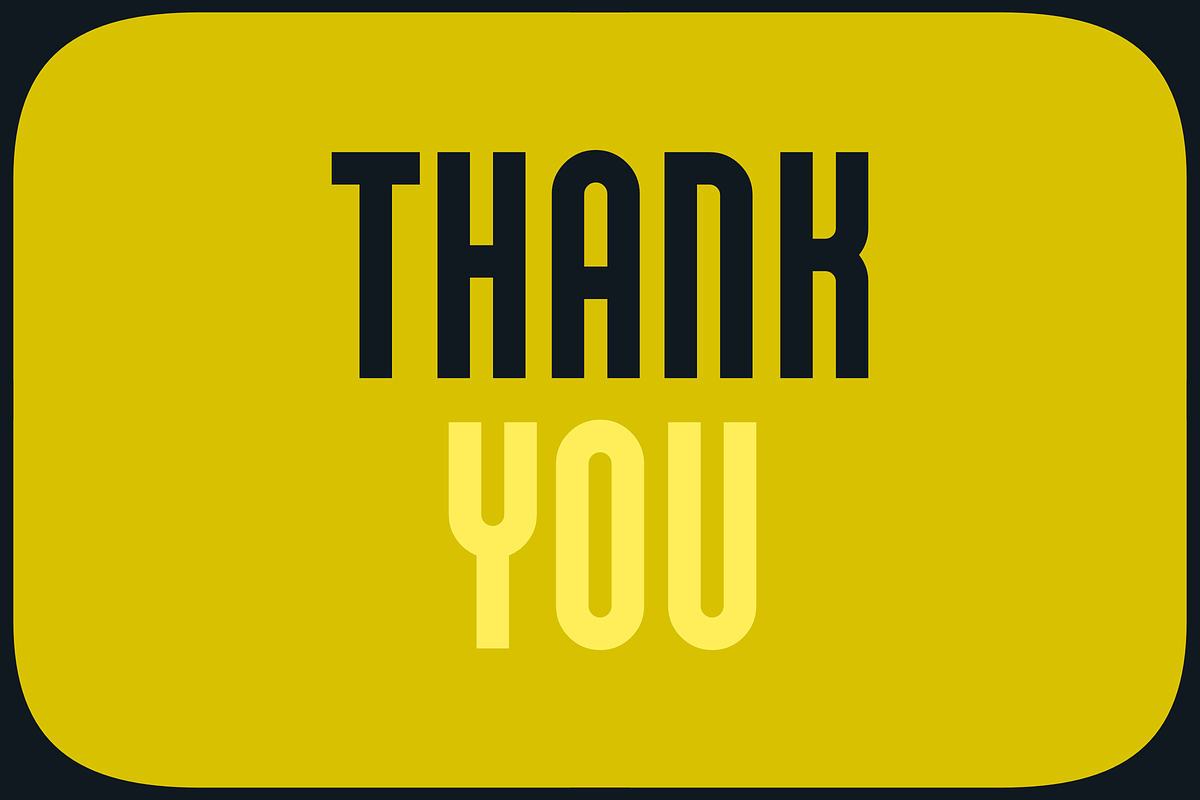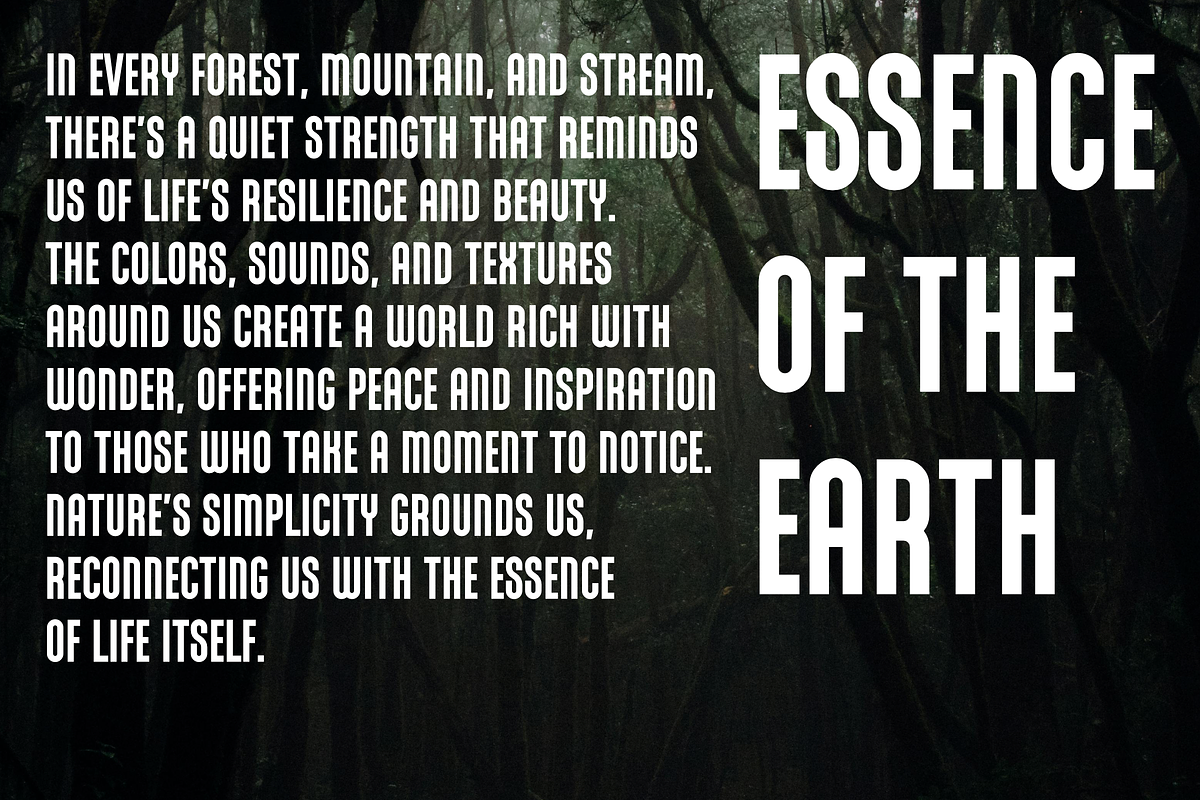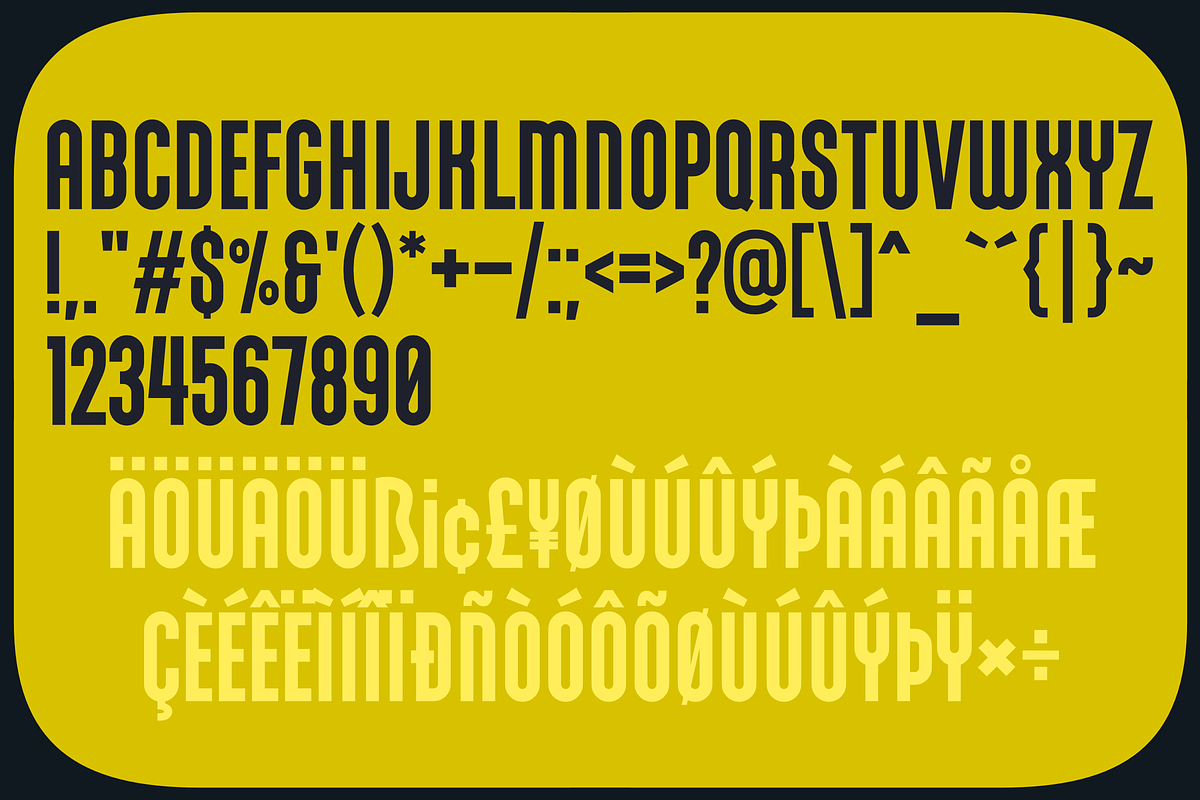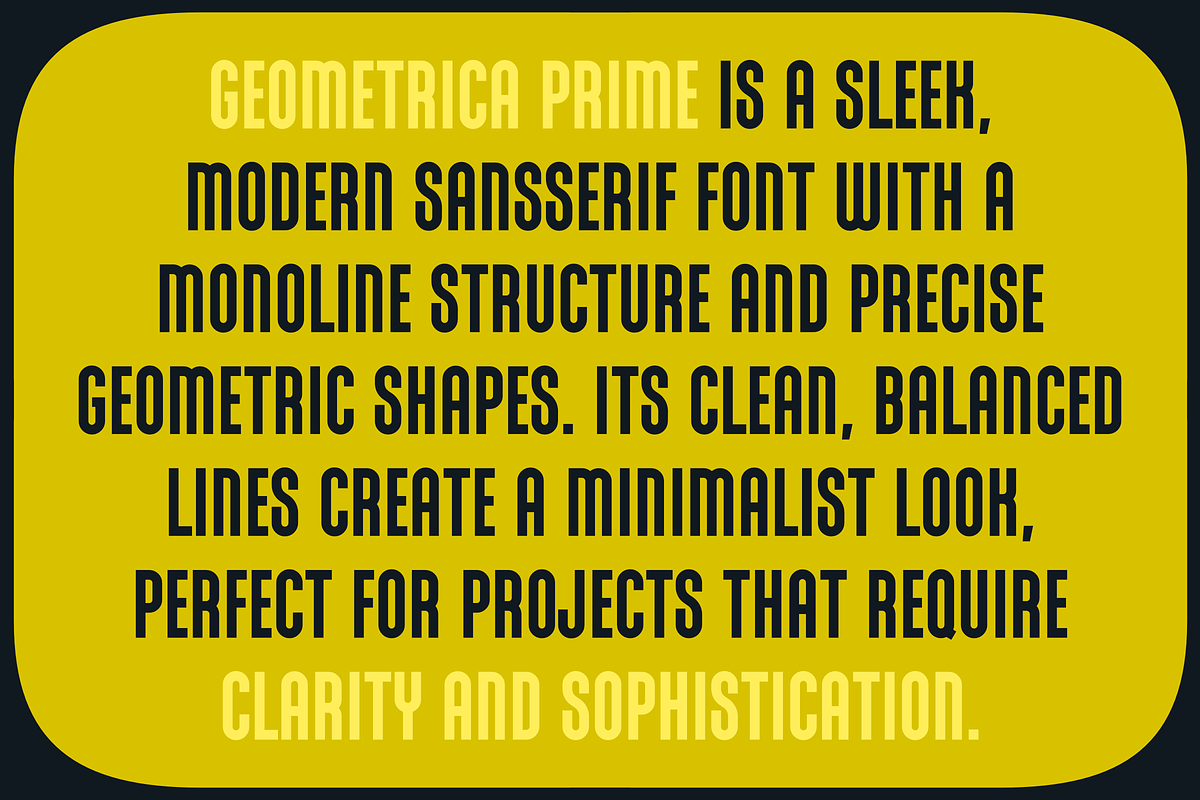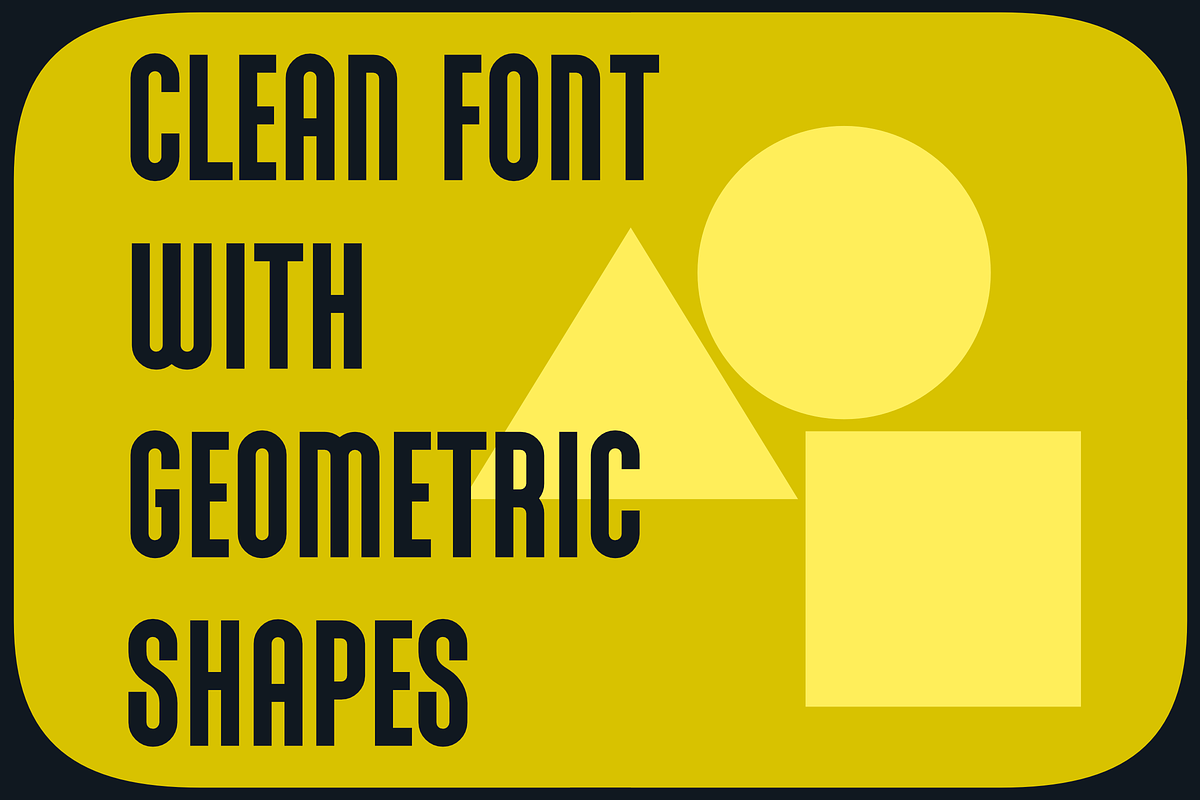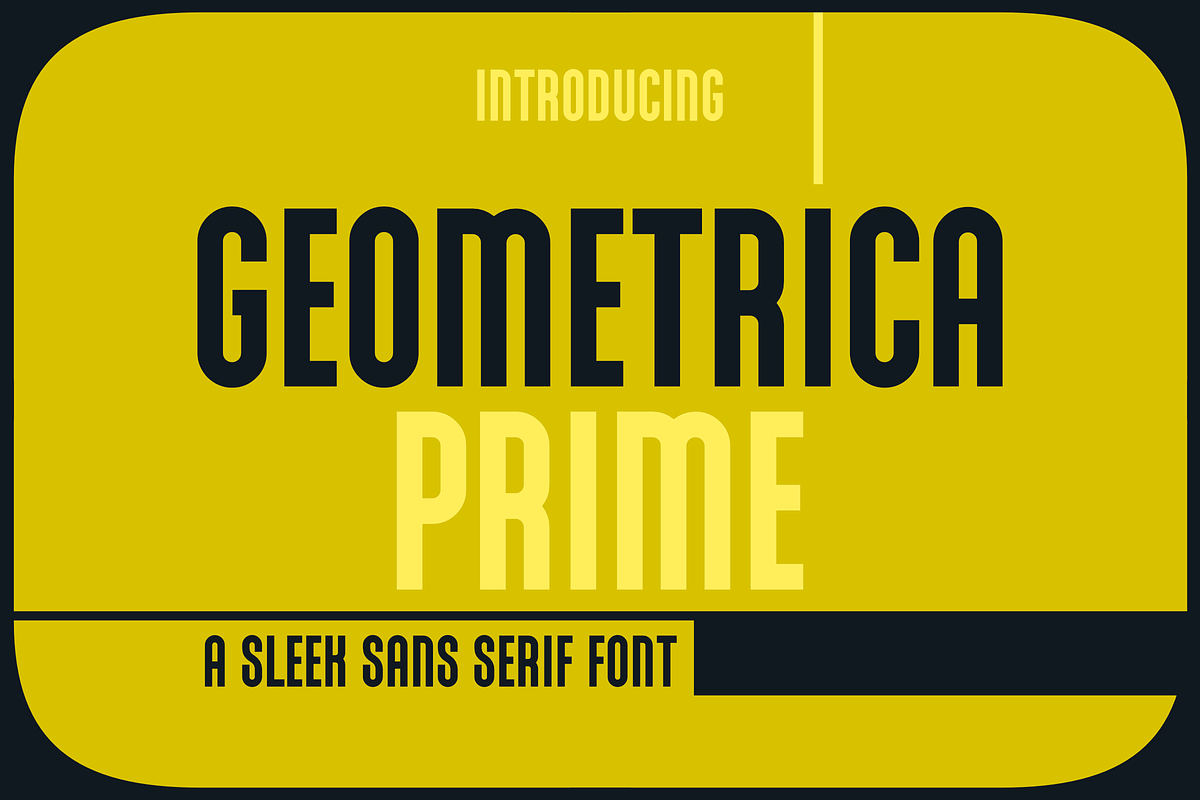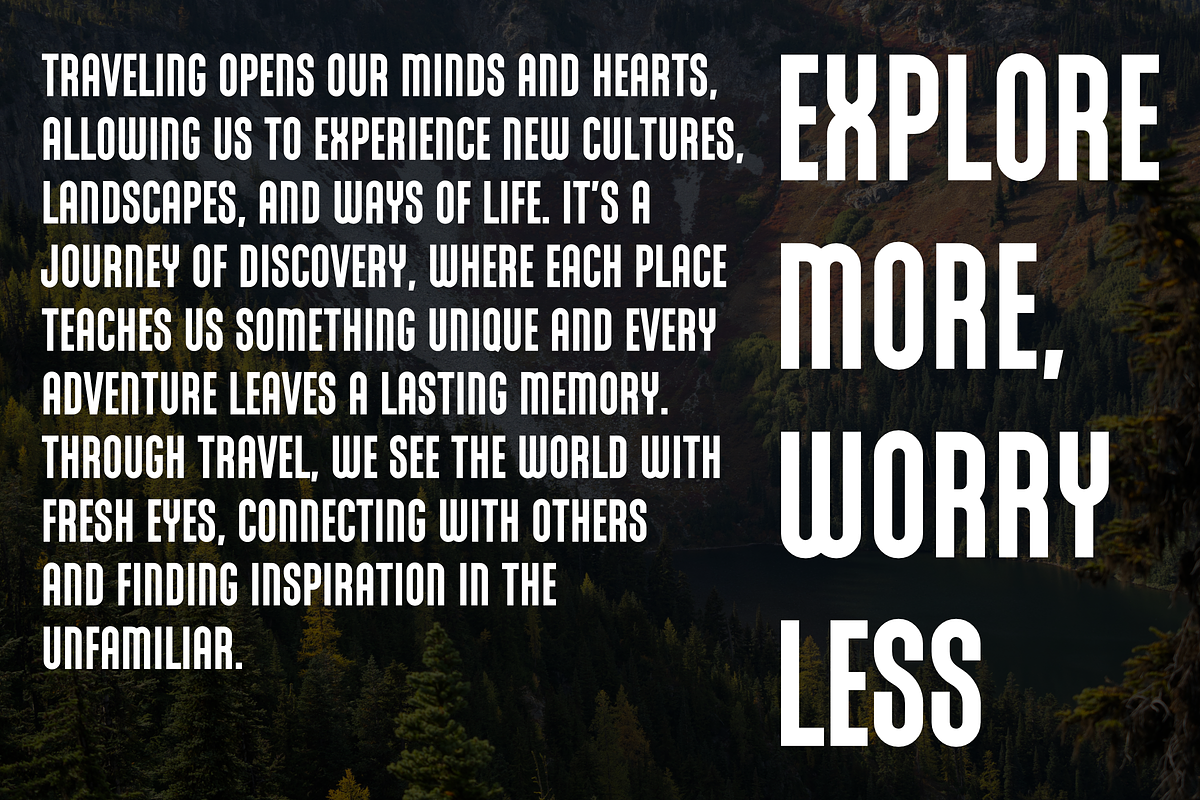
Geometrica Prime
Geometrica Prime is a refined monoline sans serif font that embodies modern minimalism. Its geometric shapes and consistent line weight create a harmonious balance, offering a clean, structured appearance. Perfect for contemporary designs, this font brings clarity and sophistication to a wide range of applications, from branding and editorial work to digital interfaces. Geometrica Prime’s simple yet striking design ensures it stands out with subtle elegance, making it ideal for projects that demand both style and readability.